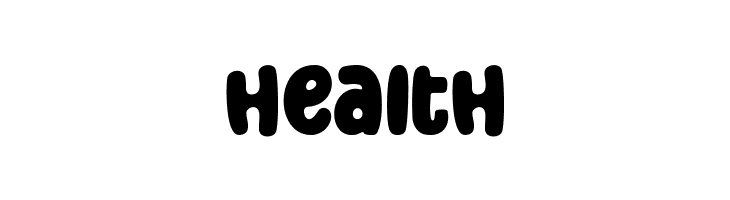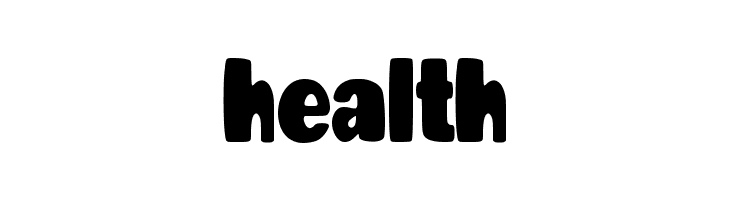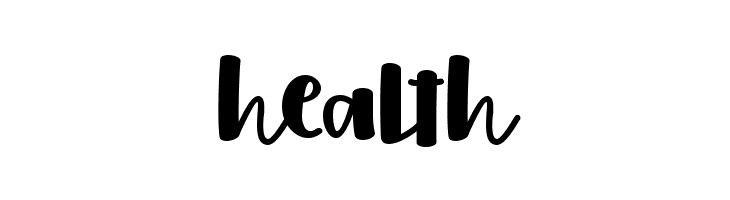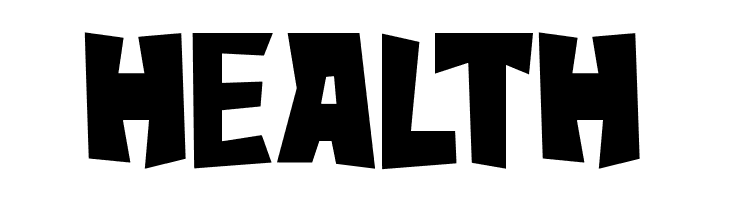
A playful, hand-drawn font with tall, narrow letters and consistent stroke width.
An elegant, flowing script font with a natural handwriting style.
A modern, light sans-serif font with rounded edges and balanced spacing.
A flowing, cursive script font with elegant, connected strokes.
A playful, bold font with rounded, thick characters and a whimsical style.
A bold, playful font with rounded characters and a whimsical style.
A bold, playful script font with a hand-drawn feel.
A bold, playful font with a hand-drawn aesthetic and rounded characters.
A bold, graffiti-inspired font with sharp angles and an urban aesthetic.